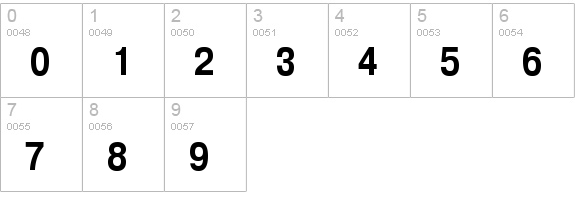
PT PragmaticaCondensed Bold Cyrillic is a strong, high-contrast variant in the PT typeface family \xE2\x80\x94 well suited to headlines, attention-grabbing titles, and strong calls-to-action.
The PT PragmaticaCondensed Bold Cyrillic font exudes a sense of boldness and professionalism with its condensed design and strong, impactful strokes. This elegant typeface is perfect for creating eye-catching headlines, titles, and branding materials that demand attention. Its Cyrillic characters add a touch of sophistication and versatility to any design project. Best of all, this exquisite font is freely available to download at FontsMarket.com. Whether you're a designer looking to enhance your typography arsenal or a business seeking a distinctive font for your marketing materials, the PT PragmaticaCondensed Bold Cyrillic font is the perfect choice. Download it today and elevate your designs with this premium typeface.